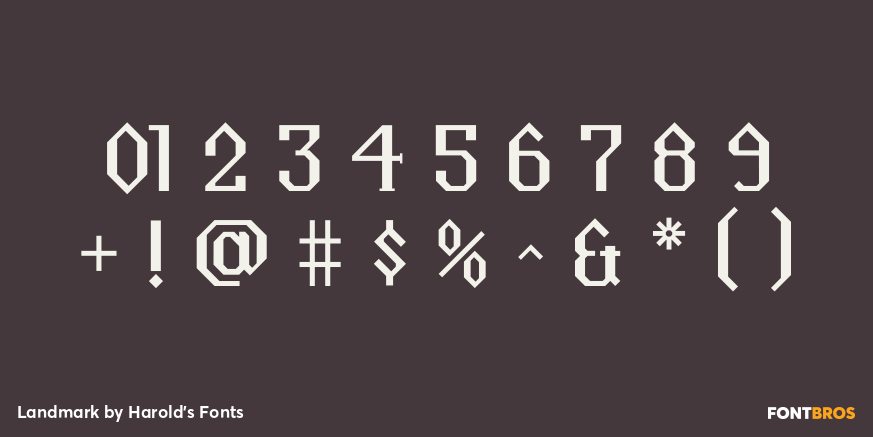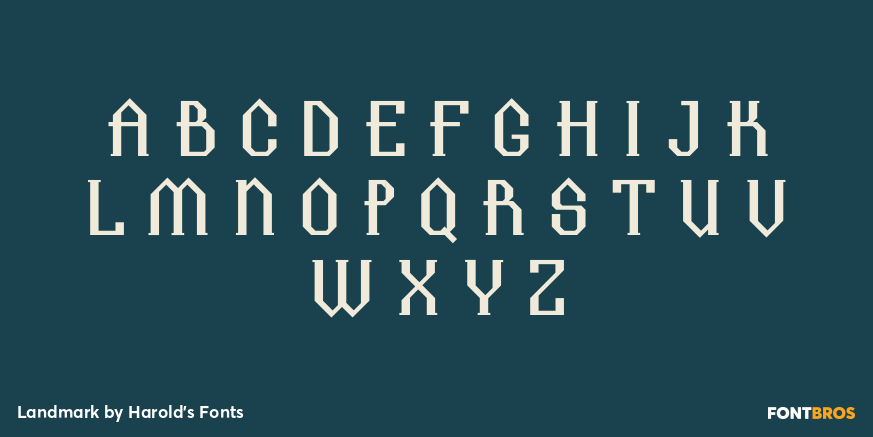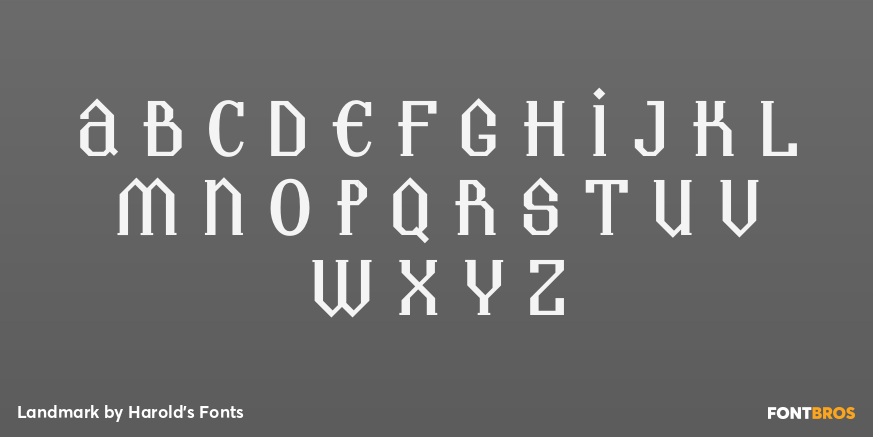
Landmark
Font Family by Harold's Fonts
LANDMARK is a bold and angular slab-serif font with a vaguely architectural feel. It was inspired by a small example of typeset text but also resembles hand-lettering styles of the 1930s.